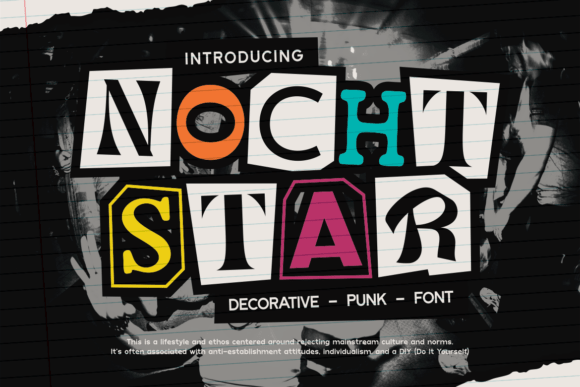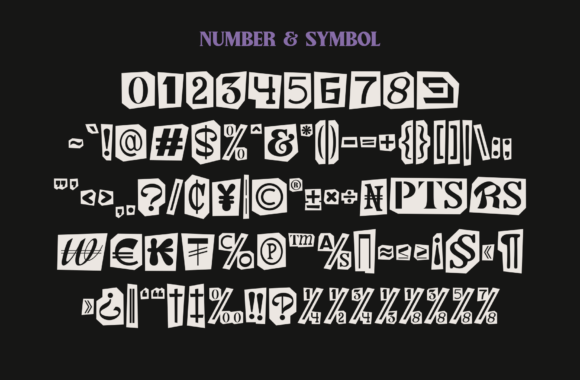
Nocht Star is a bold and rebellious decorative punk font inspired by zine culture, collage art, and raw DIY energy. Featuring mismatched letterforms and vibrant cut-out styles, it captures the chaotic, expressive vibe of underground punk scenes. Perfect for album covers, gig posters, edgy branding, and anything screaming for attitude and individuality.